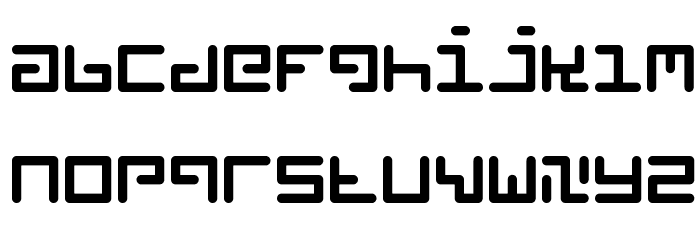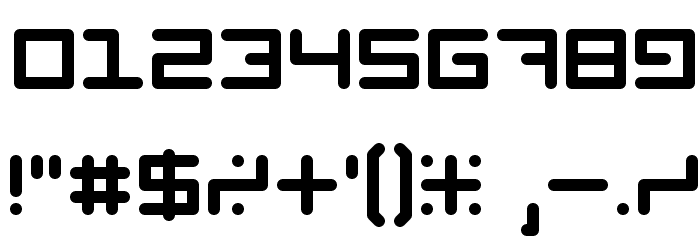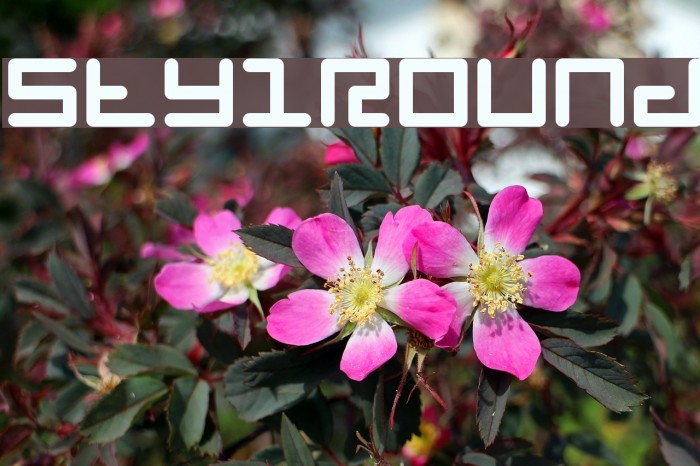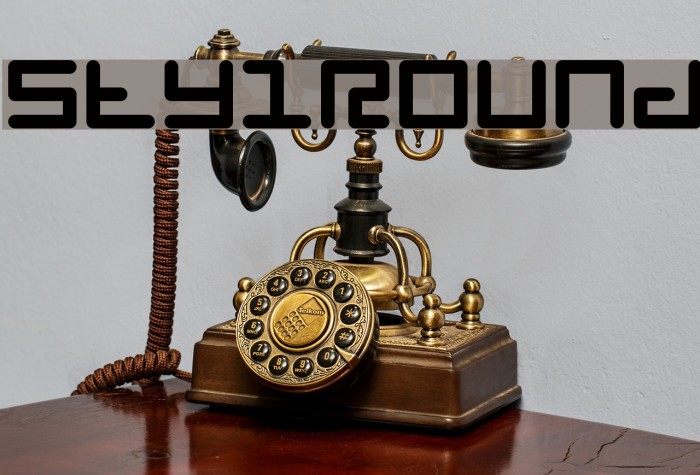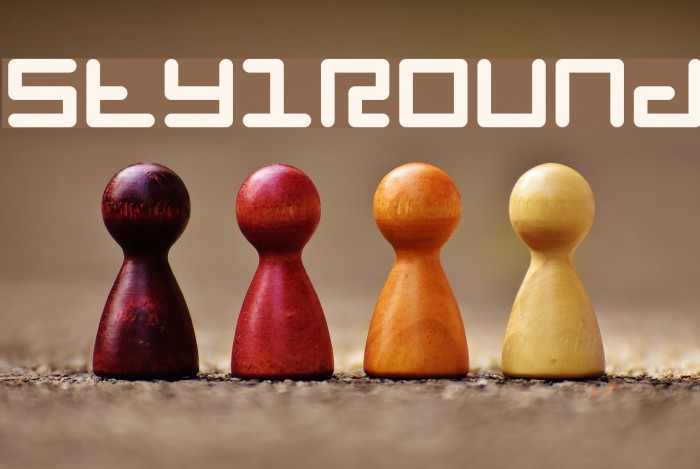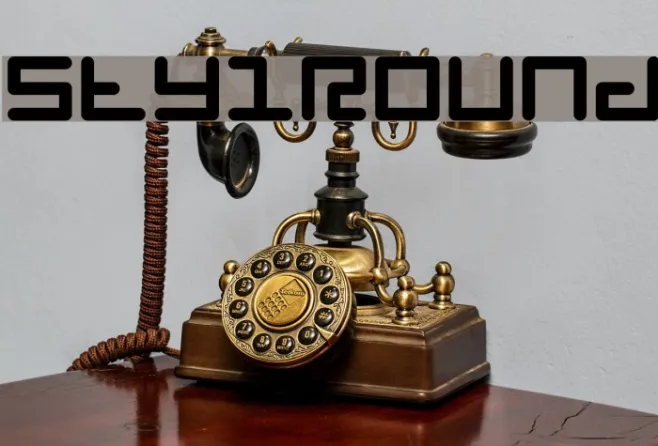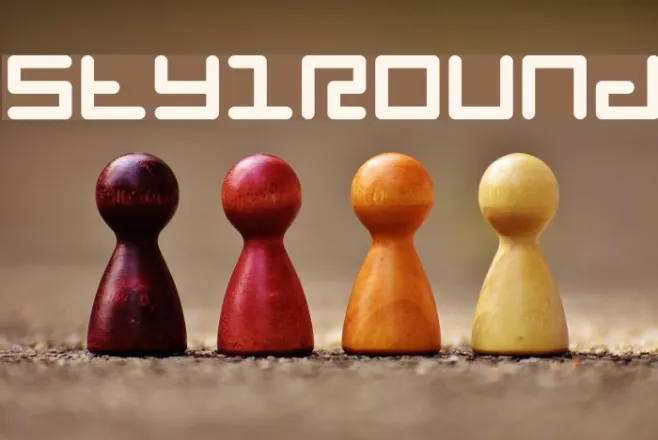
StylRound Font
This font features a modern, rounded design with a futuristic and geometric aesthetic. The characters are constructed with consistent stroke widths, giving it a uniform appearance. The rounded corners and smooth curves create a friendly and approachable feel, while the geometric structure maintains a sense of precision and clarity. The uppercase and lowercase letters are distinct yet harmonious, with a playful touch in the lowercase forms. The numerals and special characters follow the same design principles, ensuring a cohesive look across all elements. This font is well-suited for digital interfaces, technology branding, and any project requiring a contemporary and clean typeface.
A modern, rounded font with a geometric and futuristic style.
- Proposed Projects: Ideal for technology branding, digital interfaces, and modern advertising campaigns.
- Use Case: Logos, Headlines, Digital Interfaces